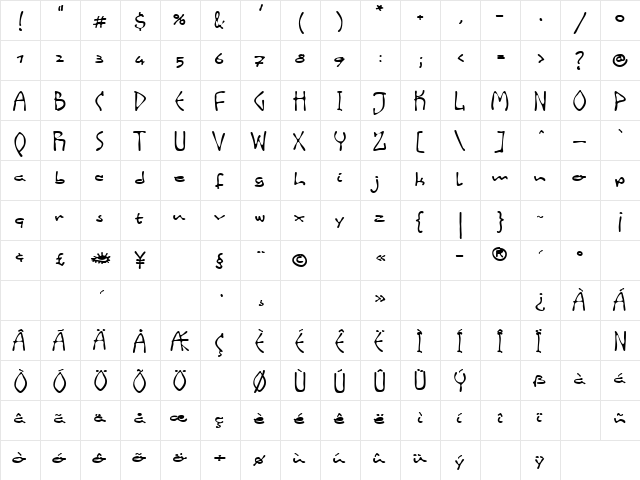
LTInky Script Script
Design Context for LTInky Script Typeface
LTInky Script flows with the natural rhythm of handwritten lettering, making it ideal for designs that call for warmth and personal expression.
Font Pairing: Combine LTInky Script with a simple geometric sans for maximum contrast — the tension between flowing curves and clean structure is a classic typographic pairing.
Pro Tip: Use LTInky Script for short runs of text — names, titles, or taglines. Extended body copy in script faces tires the eye quickly.